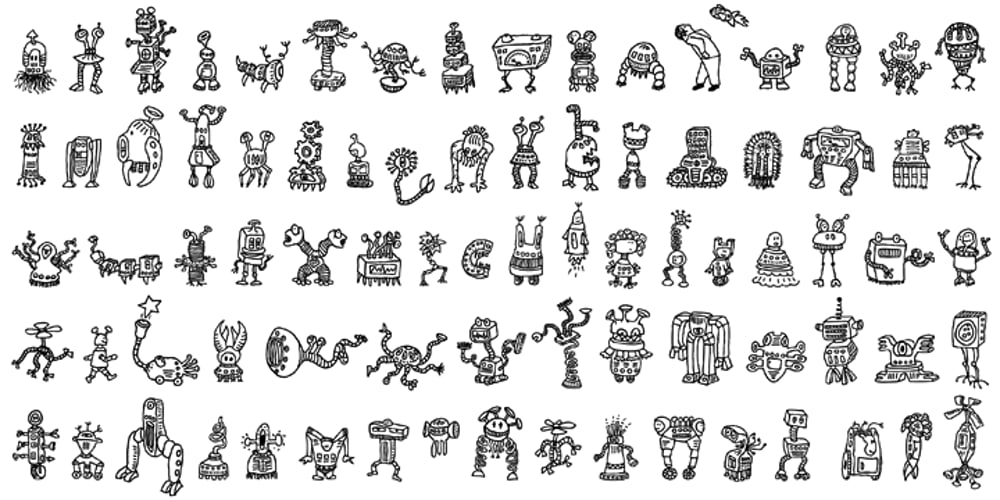
LiebeRobots Font Family was designed by Ulrike Rausch and published by LiebeFonts. LiebeRobots contains 1 styles and family package options. LiebeRobots is not your average collection of mean termination machines. LiebeRobots are friendly and polite. Some are from Mars, some from Venus, and some are probably from Germany. Most are from the future, some are from the past. And a handful are even from the 60s. LiebeRobots probably is the most comprehensive collection of hand-drawn robots ever. They look great on almost any greeting card, birthday card or invitation. LiebeRobots also serve as a perfect companion to any informal graphic design that needs a personal, handmade touch.